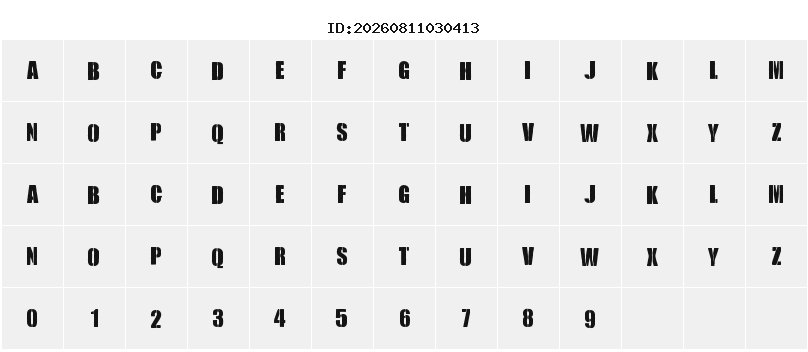
• Font Name: Royal Rumble
• Font ID: Royal Rumble:Version 1.00
• Full Font Name: Royal Rumble
• Version: Version 1.00 October 20, 2013, initial release
• PostScript Name: RoyalRumble
• Character Count: 94
About Royal Rumble.ttf
Royal Rumble.ttf is a modern, elegant sans-serif font designed for ultimate readability and visual harmony. Perfect for branding, headlines, web design, and print materials.